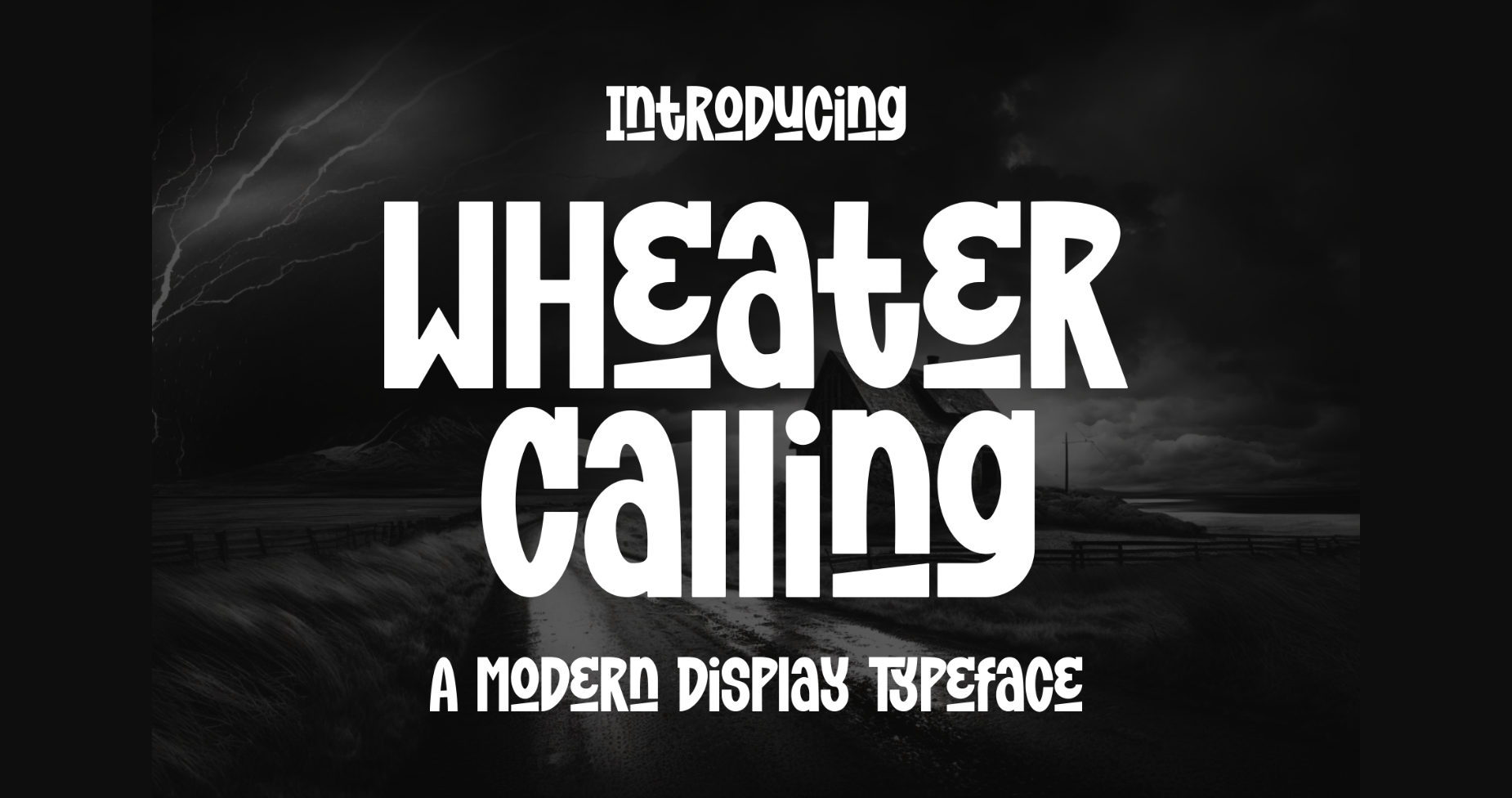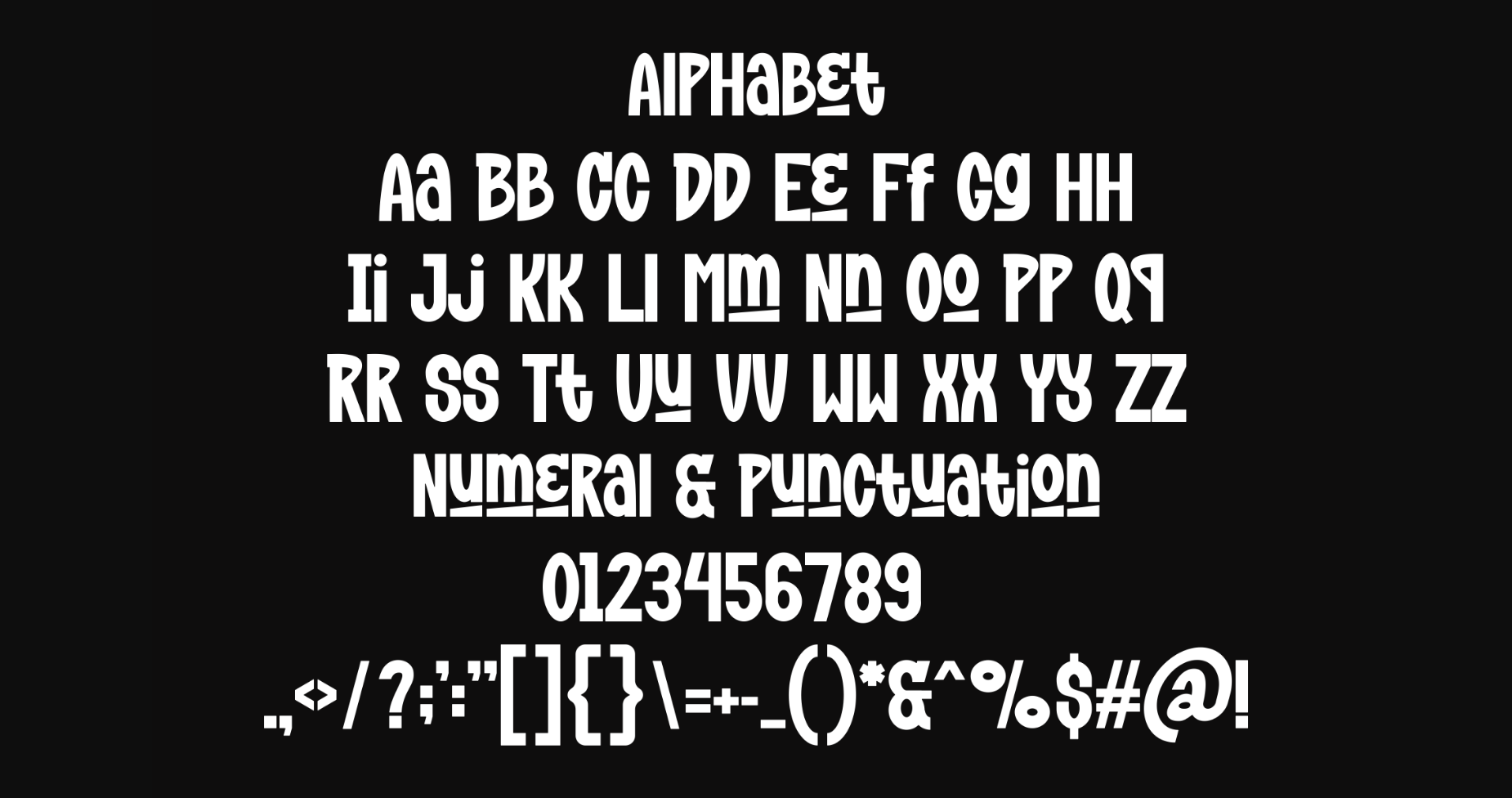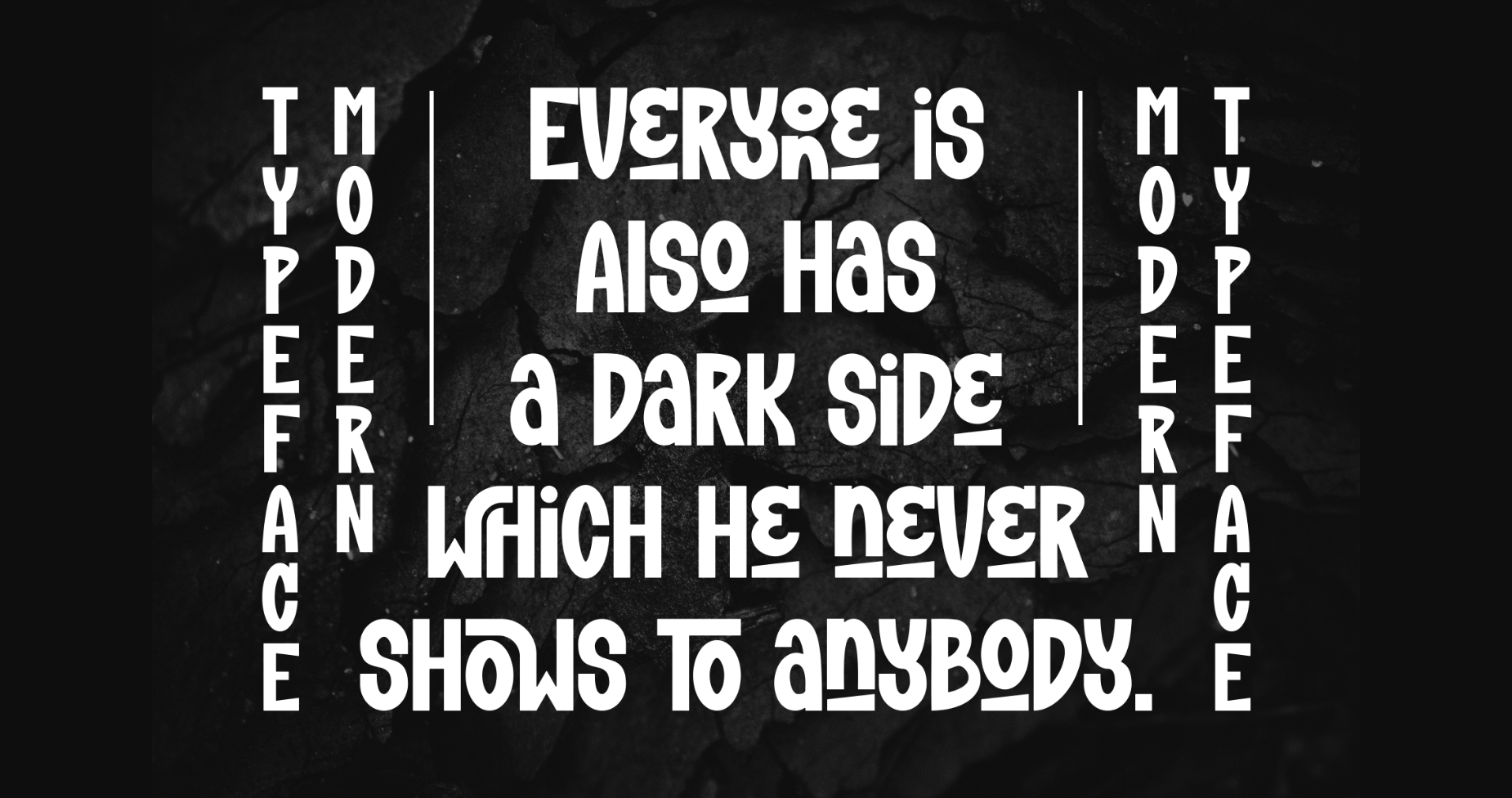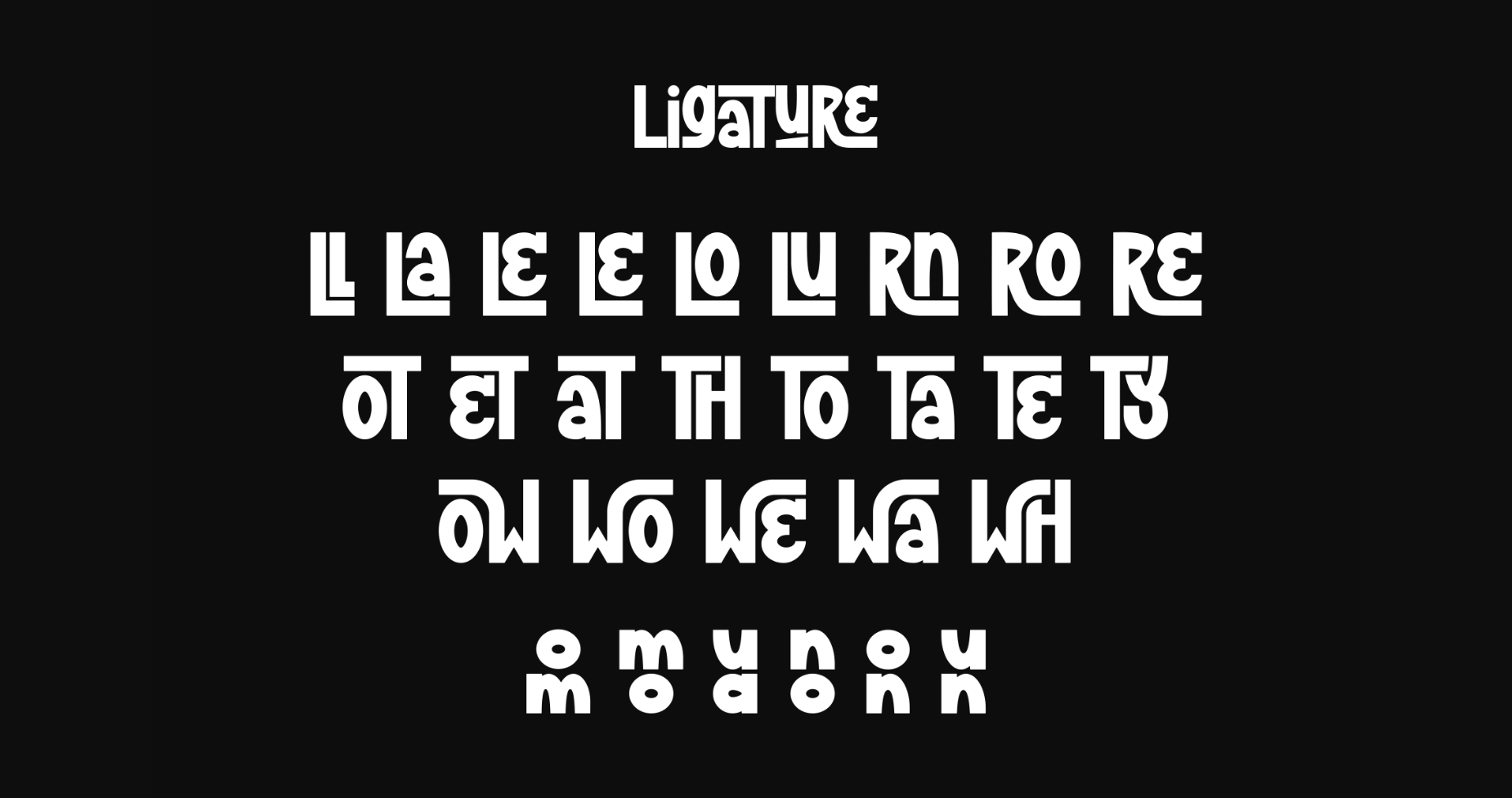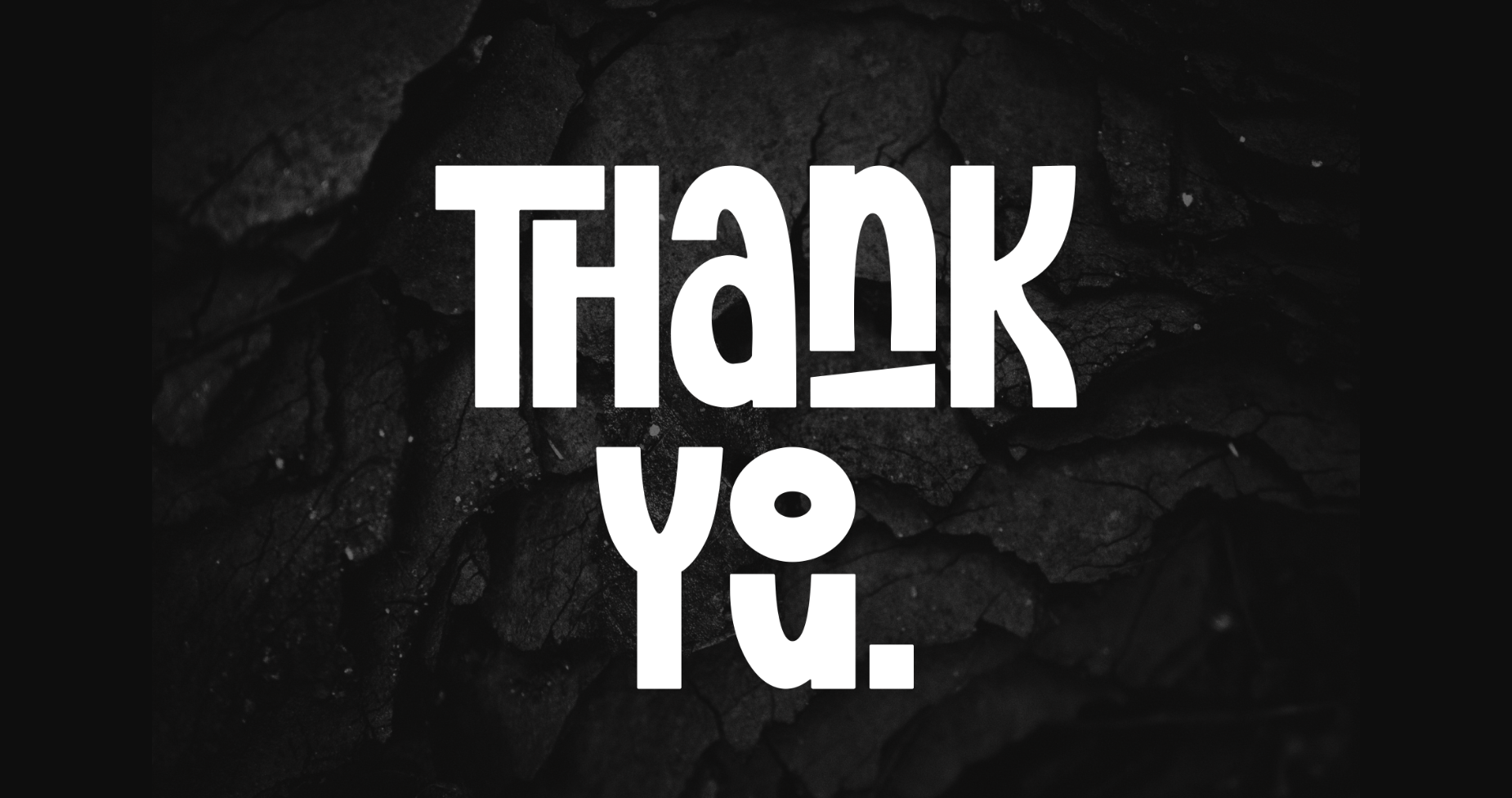
About Wheater Calling Font
Introducing our new product **Wheater Calling Font** – Modern Font
Wheater Calling Font** – Modern Font is a bold and authentic display font. The font is suitable for any branding project like logo, t-shirt printing, Product and many more. Outstanding in a wide range of contexts.